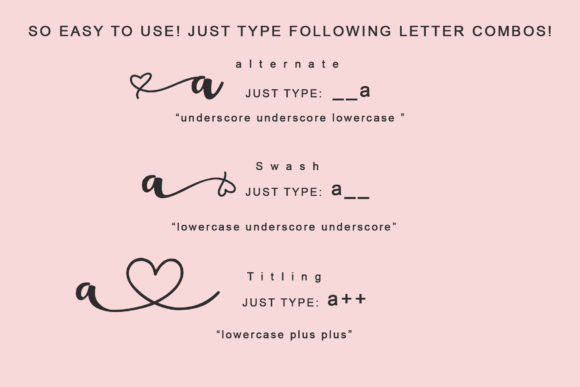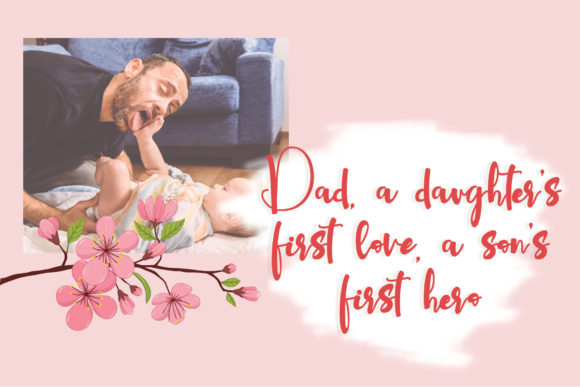
Love Lovely Font
db-ku.com - Script & Handwritten -- Love Lovely is a romantic handwritten font. It features amazing heart-shaped titling. Use it to add a special touch to your projects!